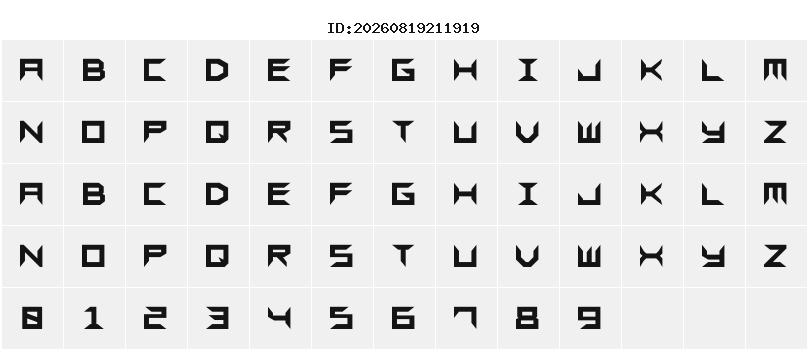
Sharps GF Preview
• Font Name: Sharps GF
• Full Font Name: Sharps GF
About Sharps GF.ttf
Sharps GF.ttf is a modern, elegant sans-serif font designed for ultimate readability and visual harmony. Perfect for branding, headlines, web design, and print materials.